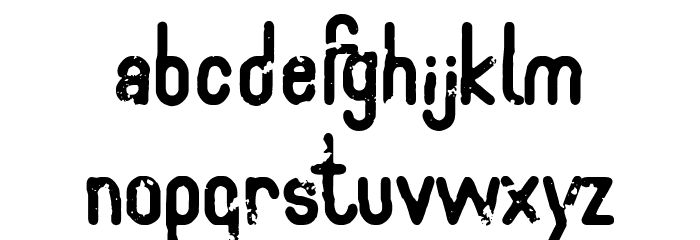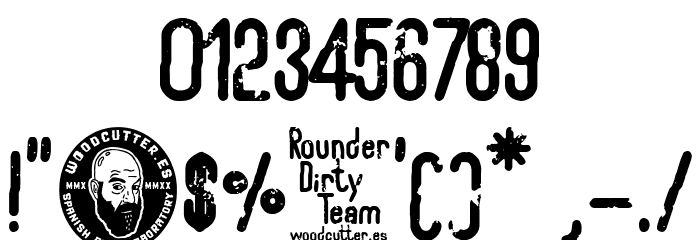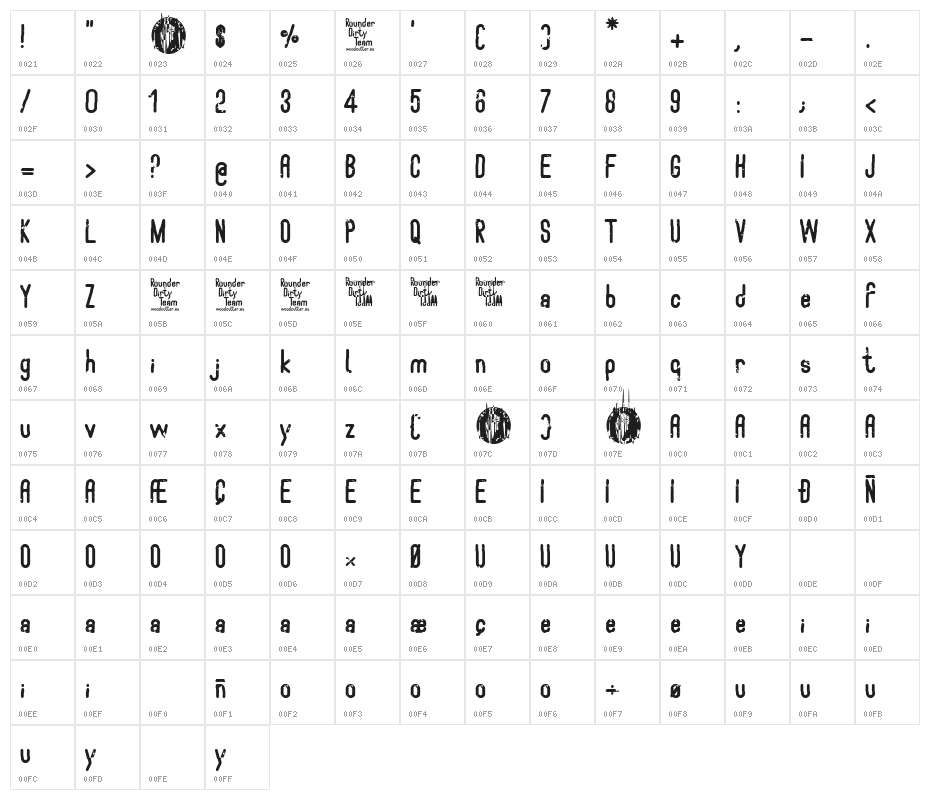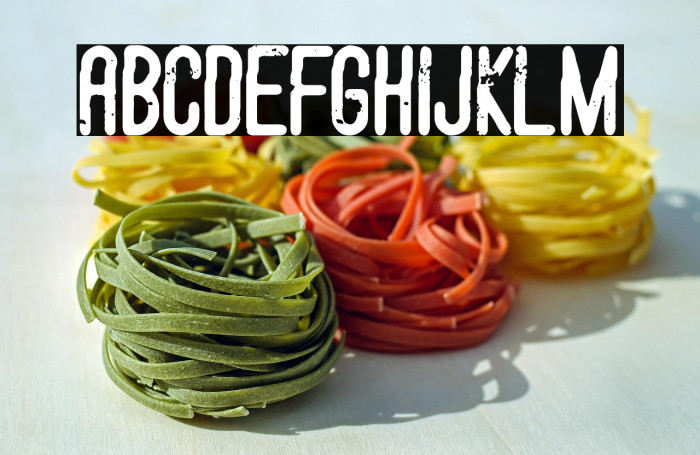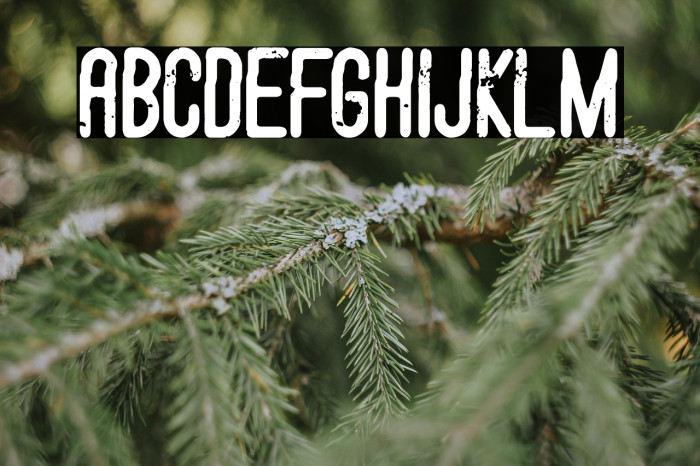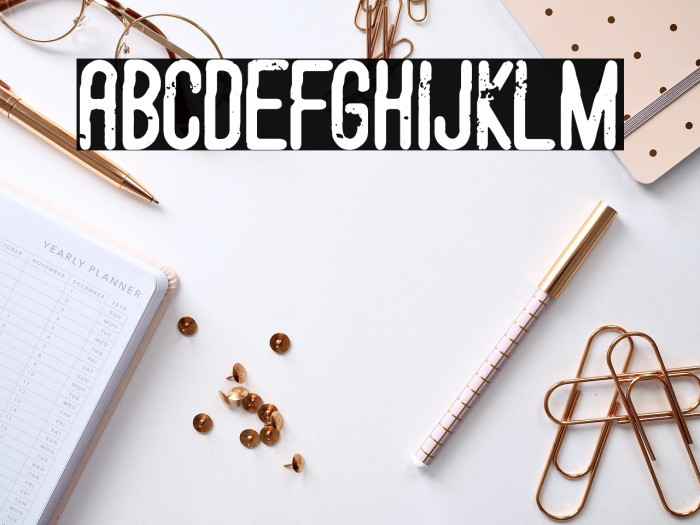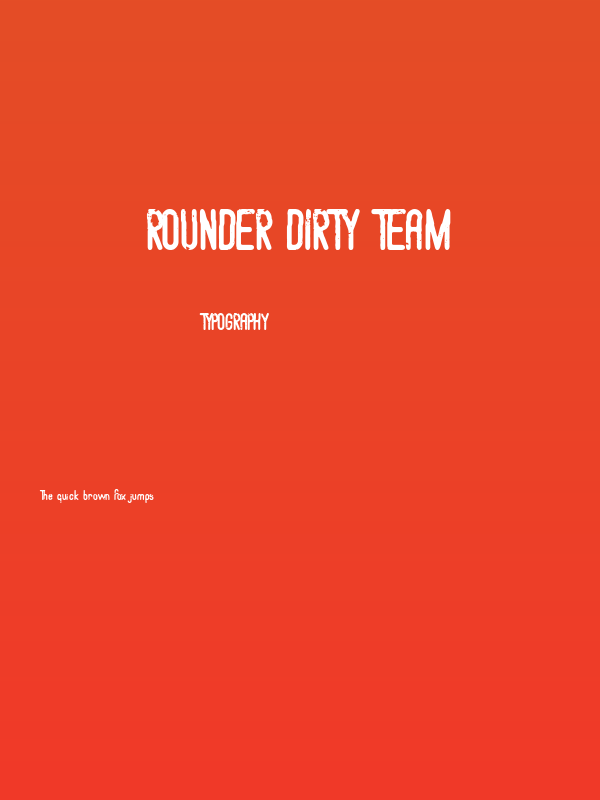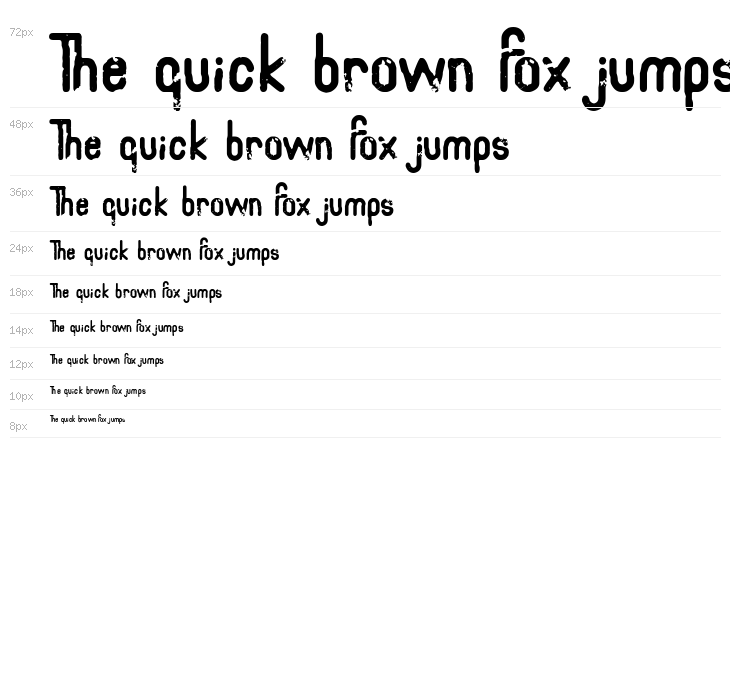
Rounder Dirty Team Font
This font features a distressed, grunge style with a bold and rugged appearance. The characters have a rough, textured look, giving them a worn and weathered feel. The uppercase and lowercase letters maintain a consistent design, with rounded edges and uneven surfaces that add to the font's unique character. The numbers and special characters follow the same aesthetic, making the font suitable for projects that require a gritty, urban vibe. Its boldness ensures visibility, while the distressed details provide a sense of authenticity and rawness.
A bold, distressed font with a rugged, grunge aesthetic.
- Font: Rounder Dirty Team
- Proposed Projects: Ideal for posters, album covers, streetwear branding, and urban-themed designs.
- Overall Style: Grunge, Urban, Distressed